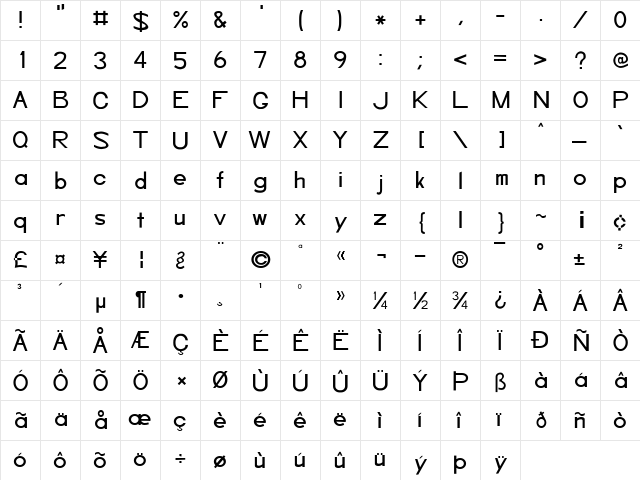
ImUgly Regular
Design Context for ImUgly Typeface
ImUgly is a composed and adaptable typeface that performs quietly and consistently across a wide range of design contexts.